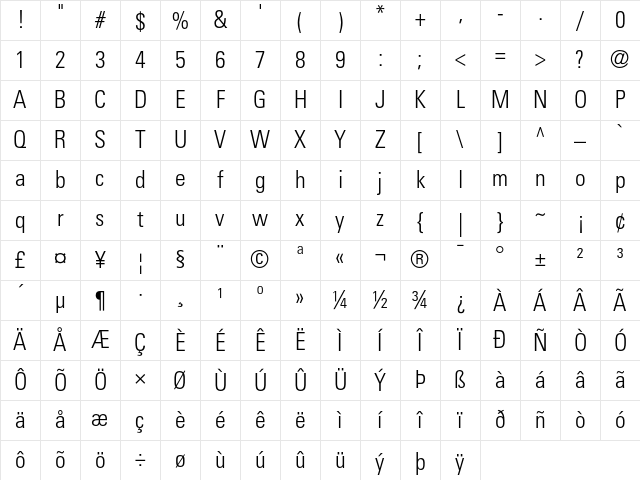
Univers 47 Condensed Light
Style: 47 Condensed Light
Design Context for Univers
Univers is a composed and adaptable typeface that performs quietly and consistently across a wide range of design contexts. Its slender proportions lend an understated elegance to any composition. Its narrow stance lets it pack a punch even in space-constrained designs.
Pro Tip: Use Univers in both headline and body roles to test its range before committing to a single application.